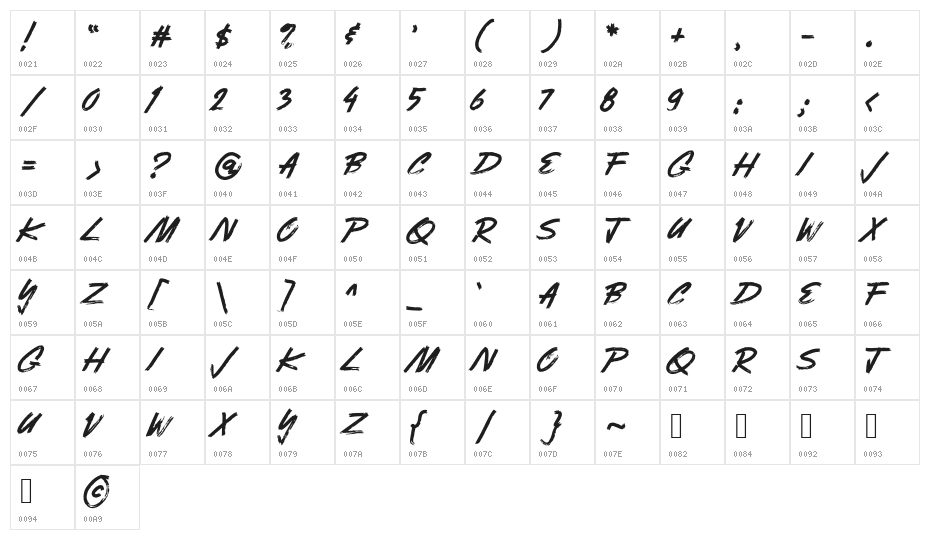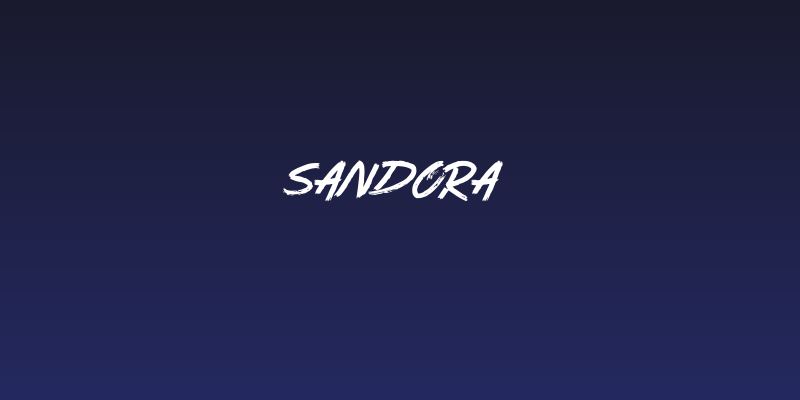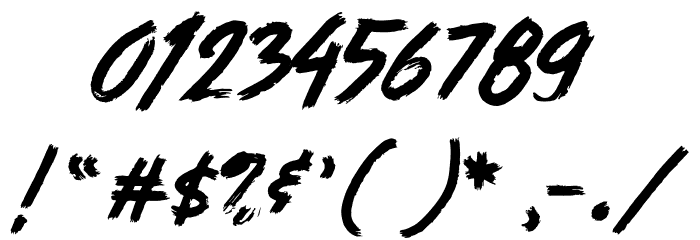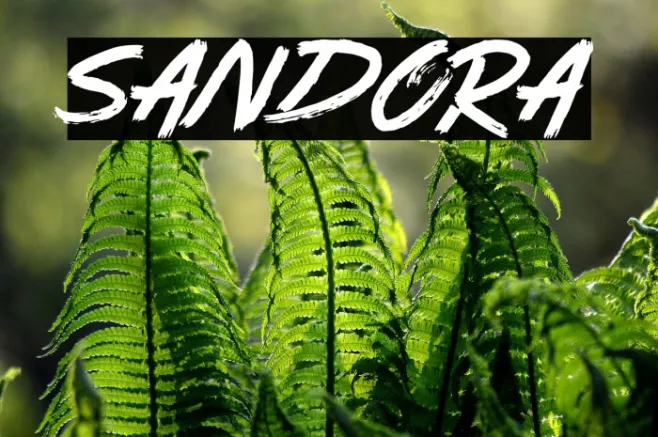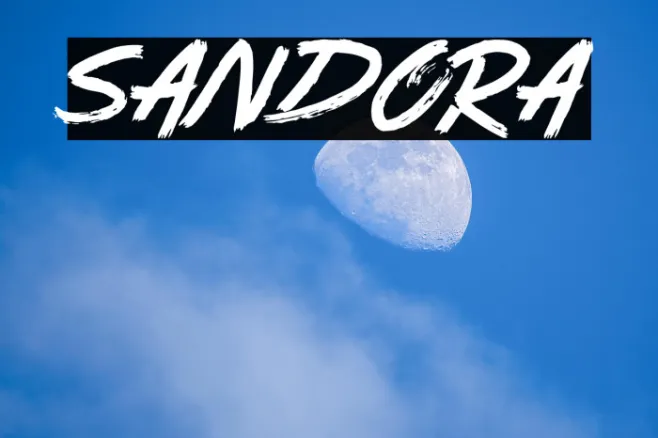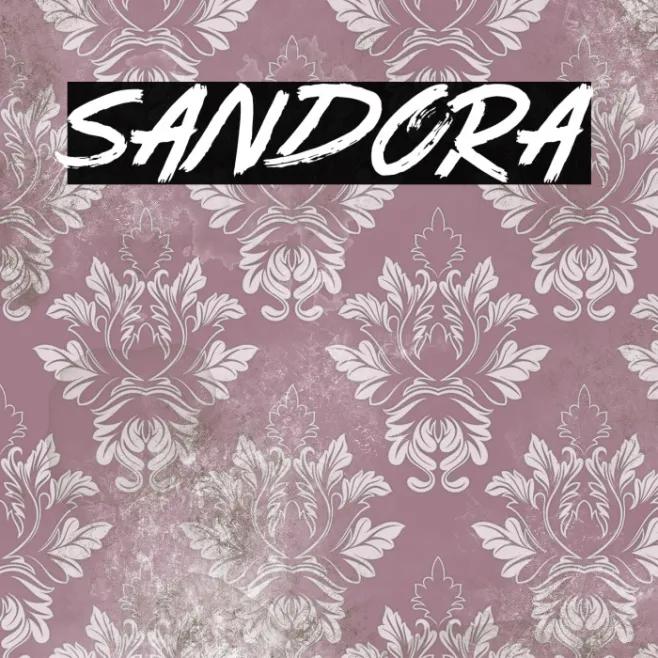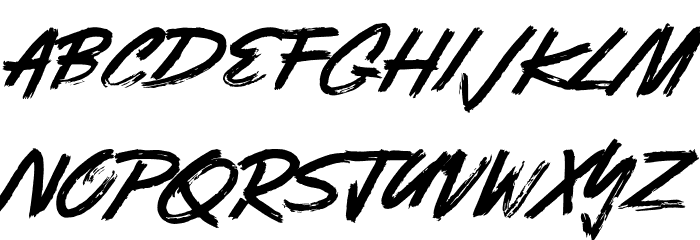
Sandora Font
Sandora Description
This font exhibits a bold and dynamic brush script style, characterized by its energetic and expressive strokes. The letters are crafted with a sense of motion and fluidity, giving the text a lively and spontaneous appearance. The uppercase and lowercase letters maintain a consistent style, with exaggerated curves and sharp angles that enhance its dramatic flair. The numbers and special characters follow the same aesthetic, ensuring a cohesive look across all glyphs. The overall design is reminiscent of hand-painted signage, making it ideal for projects that require a personal and artistic touch.
| Proposed Projects | Ideal for branding, posters, album covers, and any design that requires a bold, artistic touch. |